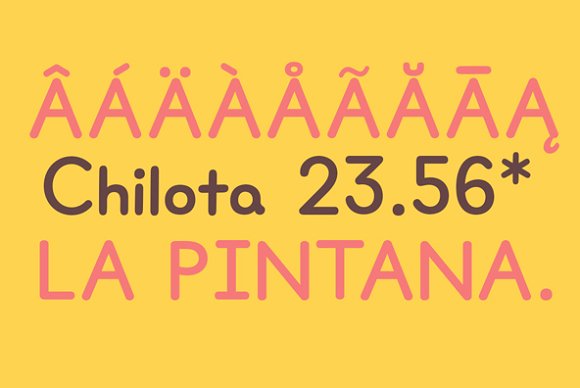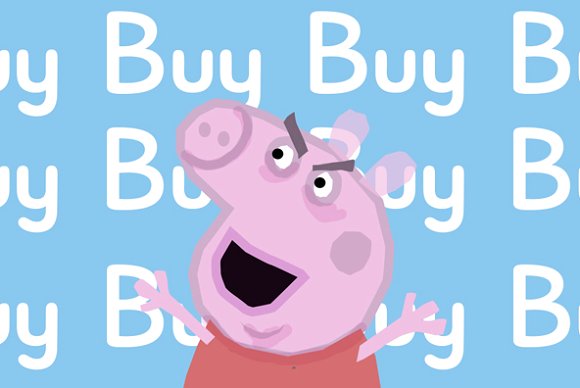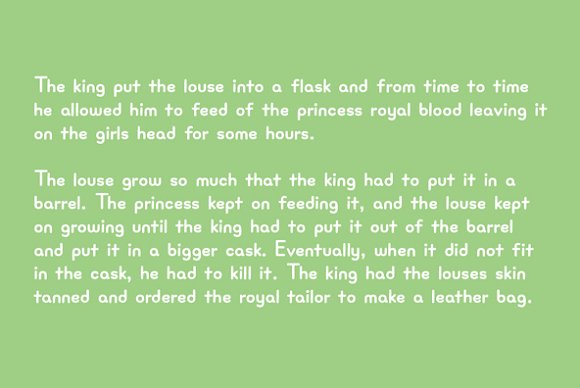
A Fun Design Moment That Led Me to Discover the Ardilla Small Font
As a designer, I’ve often found myself brainstorming ideas for projects that require a playful touch. One day, while watching my little one watch Peppa Pig, I was struck by the adorable and endearing style of the beloved character. The rounded edges and soft lines of Peppa’s design sparked an idea in me – what if I could capture that same charm in a font?
Enter the Ardilla Small Font, a delightful creation that embodies the same whimsical spirit as Peppa Pig. This font is perfect for designers who want to add a touch of warmth and approachability to their projects. With its soft rounded corners and friendly feel, the Ardilla Small Font is an excellent choice for a wide range of applications, from children’s books to brand identities.
Ardilla Small Font Key Features
- Character Set: This font includes a comprehensive set of characters, including Latin, Cyrillic, and Greek scripts, making it suitable for use in various languages and applications.
- Unique Characteristics: Ardilla Small Font features a distinctive, modern design with clean lines and subtle flair, making it an ideal choice for creative projects and branding materials.
Ardilla Small Font Review
I recently had the chance to work with the Ardilla Small Font, and I must say it’s been an interesting experience. ✨ One of the things that I like about this font is its unique, hand-crafted feel. It adds a touch of personality to any design, and can be a great choice for projects that need a bit of whimsy.
- ✨ The font’s imperfections are actually a strength, adding character to text
- ✨ It’s highly legible, even at small sizes
- ✨ The font is highly customizable, with a wide range of styles and weights available
However, there are a few limitations to consider. ⚠️ The font’s irregularities can sometimes make it difficult to read, especially for long blocks of text. Additionally, the font’s high level of customization can be overwhelming, and may require some trial and error to get right.
- ⚠️ Can be difficult to read for long periods of time
- ⚠️ High level of customization can be overwhelming
Overall, I think the Ardilla Small Font is a great choice for projects that need a unique, hand-crafted feel. While it may have some limitations, the benefits far outweigh the drawbacks. With a bit of care and attention, this font can add a touch of magic to any design.
The Ardilla Small Font is ideal for use in branding, advertising, and editorial design. Its unique characteristics make it perfect for use in headings, titles, and body text. Use it to create a distinctive and memorable brand identity, or to add a touch of elegance to your editorial design.
Experiment with different font sizes and styles to create a unique look. Pair Ardilla Small Font with other fonts to create a harmonious and balanced design. Use it in combination with bold and italic text to add emphasis and create visual interest.
Q: Is Ardilla Small Font optimized for web use?
Yes, Ardilla Small Font is optimized for web use, with a focus on legibility and readability on various digital devices. It is also designed to work well with a range of screen resolutions and pixel densities.